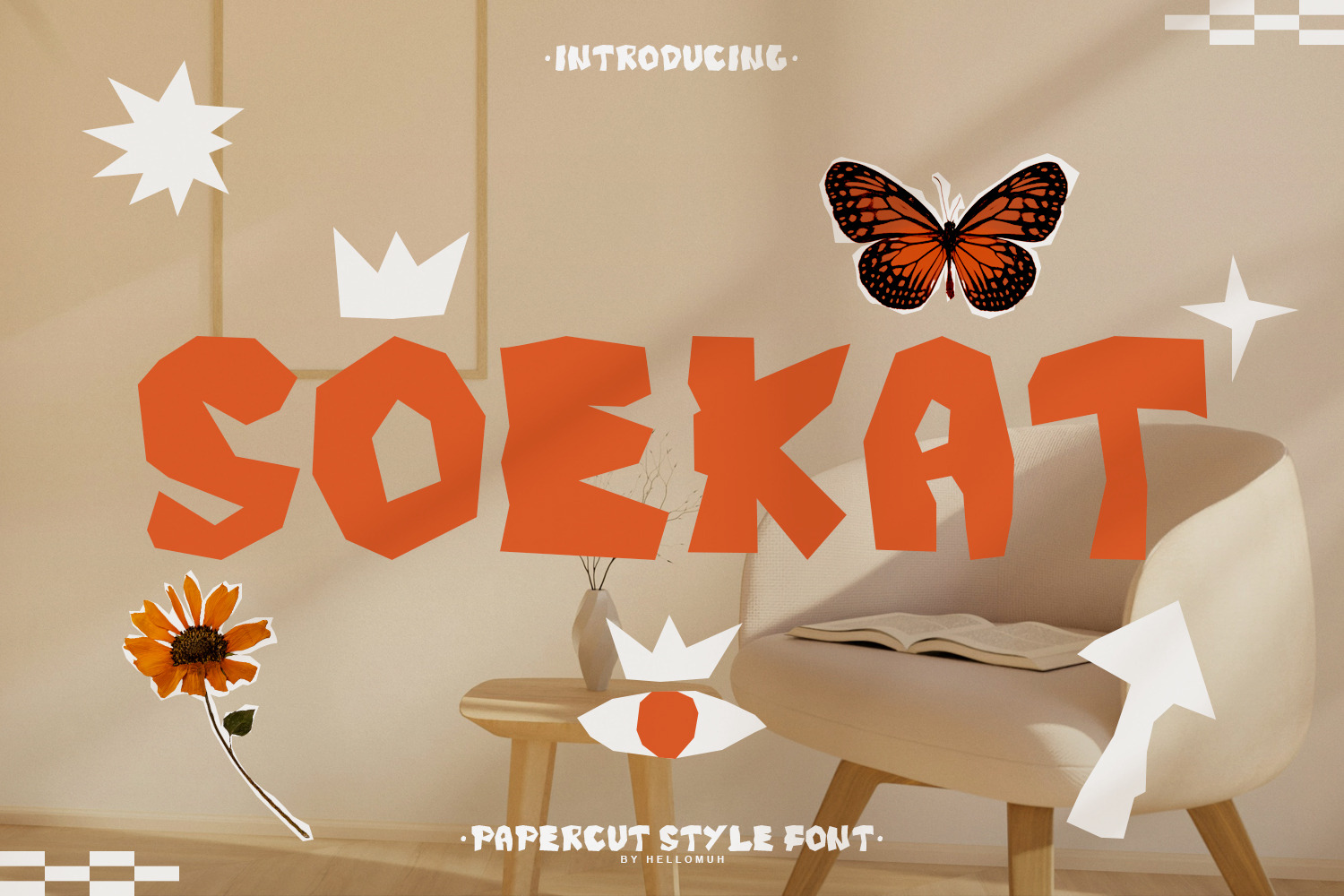
Soekat - Papercut style font
SOEKAT – Papercut Style Font
SOEKAT is a unique papercut-style display font with an expressive and artistic look. Each letter appears like a hand-cut shape, featuring irregular edges and sharp angles that create a playful, handmade aesthetic.